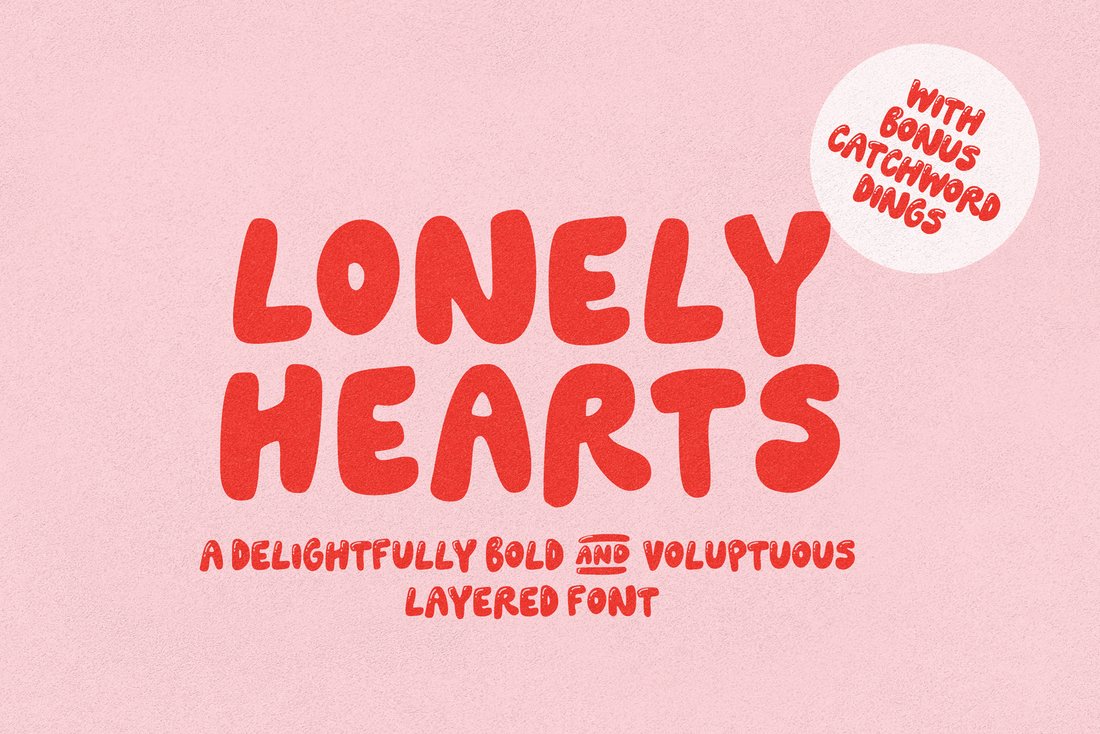
Lonely Hearts Layered Font Family
Lonely Hearts Layered Font Family by Nicky Laatz
Say Hello to Lonely Hearts!
A fun bubble style font with 2 bonus layered fonts you can add on top for some shine! A thicker shine and a thinner shine are available - take your pick :)
Perfect for playful quotes, packaging, branding, invitations, greeting cards and so much more.
Super easy to use - with a couple of extra bonus catchwords in the Opentype features Ligatures section :)